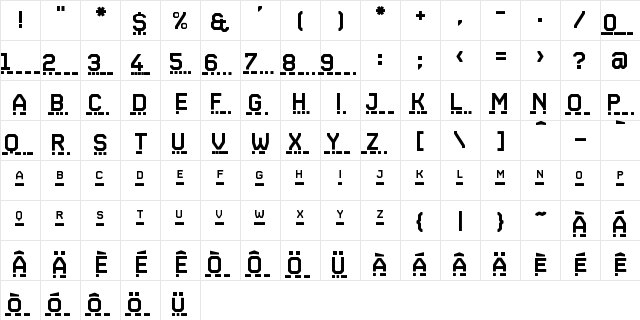
TransAM-Modified Regular
Design Context for TransAM-Modified Typeface
TransAM-Modified offers clean, dependable letterforms without strong stylistic allegiance, making it a practical choice for designers who need flexibility.